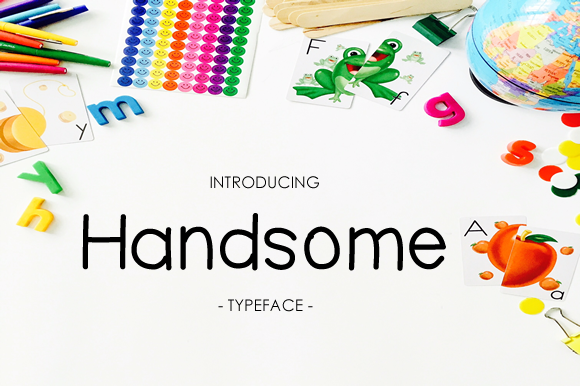
Introducing Handsome Font: The Perfect Blend of Fun and Elegance
In the world of typography, fonts play a crucial role in conveying the tone and personality of a brand or design. With thousands of fonts available, it can be overwhelming to choose the right one that captures the essence of your message. However, if you’re looking for a font that exudes fun, relaxation, and a touch of nostalgia, look no further than Handsome Font. In this article, we’ll explore the unique characteristics of Handsome Font and why it’s the perfect choice for your design needs.
What is Handsome Font?
Handsome Font is a fun, relaxed font that is reminiscent of that one girl in class who had the most perfect handwriting. With an evenness and steadiness, this handwritten font will give your designs a clean and nostalgic feel. The font’s unique characteristics make it stand out from other fonts, making it perfect for designs that require a personal touch.
Key Features of Handsome Font
- Handwritten style: Handsome Font has a beautiful handwritten style that gives it a personal and unique touch.
- Even and steady: The font’s evenness and steadiness make it easy to read and give it a clean feel.
- Fun and relaxed: Handsome Font has a fun and relaxed vibe that’s perfect for designs that require a playful touch.
- Nostalgic feel: The font’s classic style gives it a nostalgic feel that’s perfect for designs that require a retro touch.
Ideas for Using Handsome Font
Handsome Font is a versatile font that can be used in a variety of designs, including:
- Branding and logos: Use Handsome Font to create a unique and memorable brand identity.
- Posters and flyers: Add a personal touch to your posters and flyers with Handsome Font.
- Social media graphics: Use Handsome Font to create engaging and fun social media graphics.
- Wedding and event invitations: Add a touch of elegance and sophistication to your wedding and event invitations with Handsome Font.
Benefits of Using Handsome Font
Using Handsome Font in your designs comes with several benefits, including:
- Unique and memorable: Handsome Font is a unique and memorable font that will make your designs stand out.
- Easy to read: The font’s evenness and steadiness make it easy to read, even at small sizes.
- Versatile: Handsome Font can be used in a variety of designs, from branding and logos to posters and social media graphics.
- Nostalgic feel: The font’s classic style gives it a nostalgic feel that’s perfect for designs that require a retro touch.
Tips for Using Handsome Font
Here are some tips for using Handsome Font in your designs:
- Use it sparingly: Use Handsome Font sparingly to add a personal touch to your designs.
- Pair it with other fonts: Pair Handsome Font with other fonts to create a unique and interesting contrast.
- Experiment with colors: Experiment with different colors to find the perfect combination that works with Handsome Font.
- Keep it simple: Keep your designs simple and clean to let Handsome Font shine.
In conclusion, Handsome Font is a unique and versatile font that’s perfect for designs that require a personal touch. With its handwritten style, evenness and steadiness, and nostalgic feel, it’s the perfect choice for a variety of designs. By following the tips outlined in this article, you can make the most of Handsome Font and create designs that are memorable and engaging.